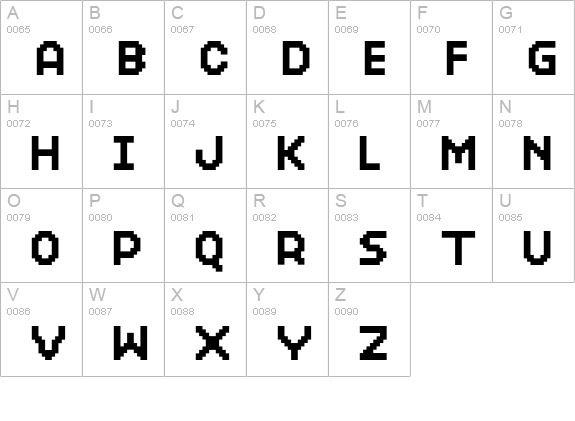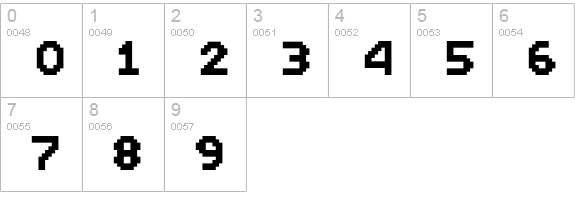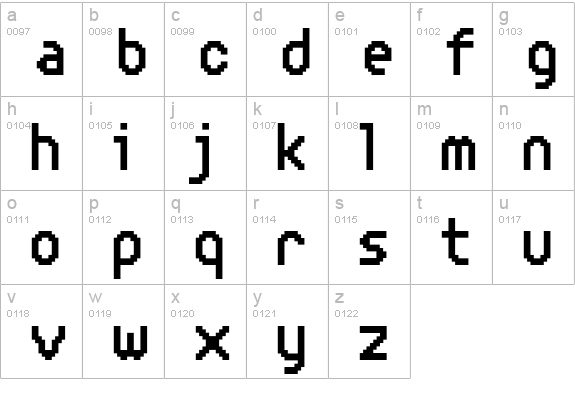
XERXES-TWELVE Font Details
Introducing XERXES-TWELVE, a stunning and versatile font that exudes elegance and sophistication. With its sleek lines and modern design, XERXES-TWELVE is perfect for adding a touch of class to any project. Whether you're creating a logo, designing a website, or working on a branding project, this font is sure to make a statement. What sets XERXES-TWELVE apart is not only its impeccable style but also its accessibility. This font is available for free download at FontsMarket.com, making it easy for designers of all levels to incorporate it into their work. With XERXES-TWELVE, you can elevate your designs without breaking the bank. Don't miss out on the opportunity to enhance your projects with the elegance and flair of XERXES-TWELVE. Download this exceptional font today and take your designs to the next level.